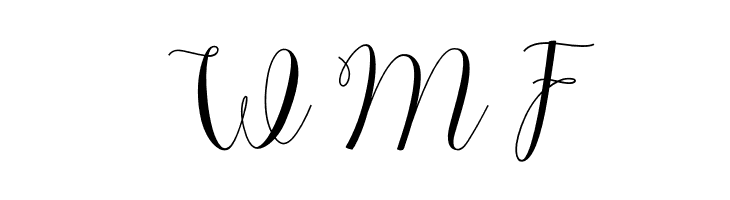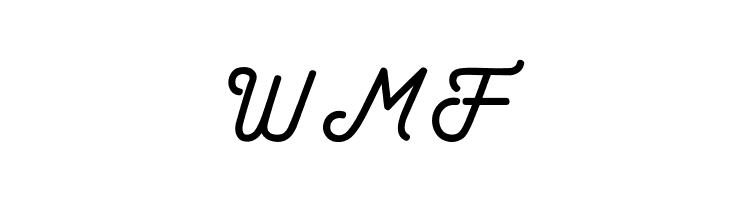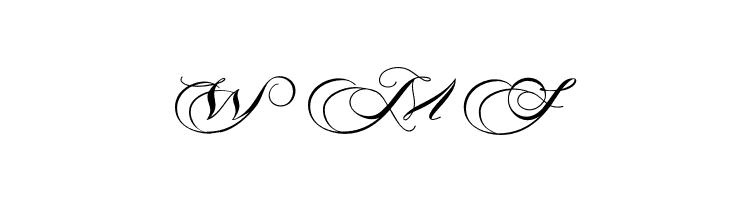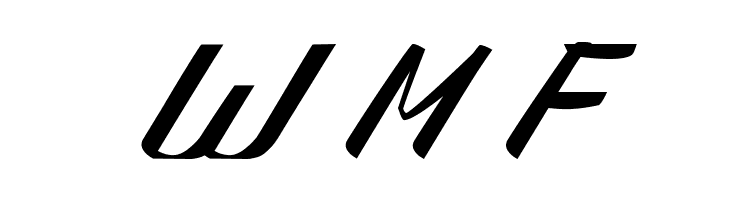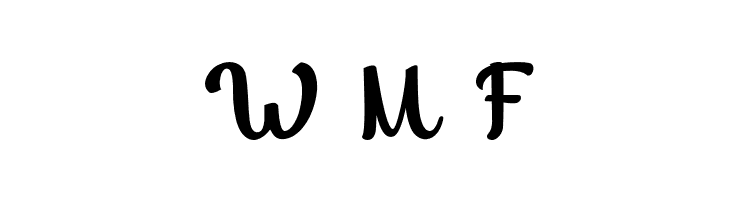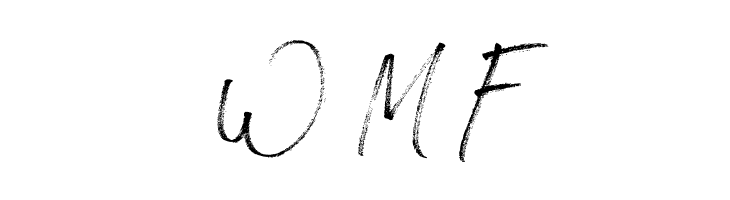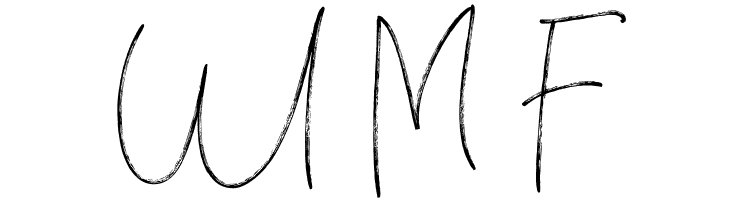
An elegant, flowing script font with graceful curves and sophisticated swashes.
A charming script font with smooth, flowing lines and elegant curves.
A flowing, cursive script font with elegant, interconnected letters.
An elegant script font with ornate swashes and flowing letterforms.
A bold, slanted script font with high contrast and fluid connectivity.
A bold and playful brush script font with dynamic strokes.
A dynamic, expressive handwritten font with fluid, cursive strokes.
A dynamic, brush-style font with an artistic and hand-drawn appearance.